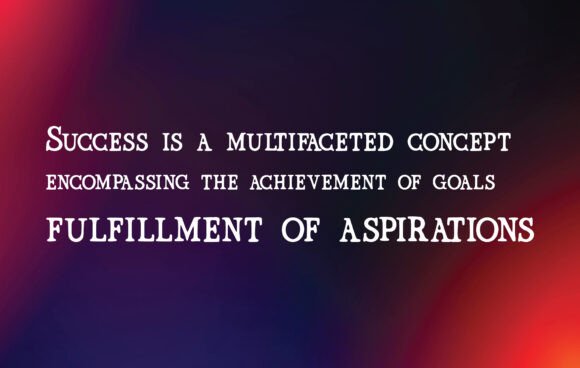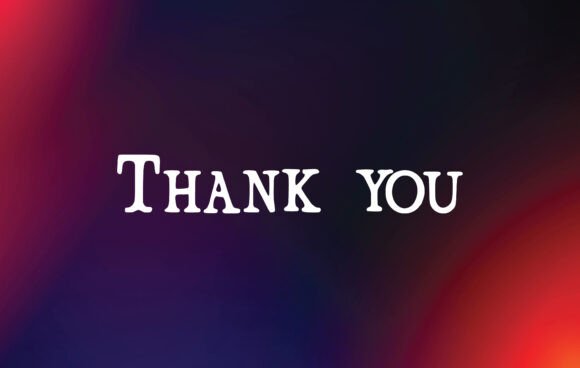
The Ultimate Design Companion: Unleashing the Power of Buffalo Font
Ah, the quest for the perfect font – a designer’s eternal struggle! I still remember the time I was working on a magazine layout, pouring over font options, and just couldn’t seem to find the right fit. My client wanted something stylish, yet easy to read; something that would elevate their brand without overpowering it. And then, I stumbled upon Buffalo Font. 💡
This font has been a game-changer for me, and I’m excited to share its awesomeness with you! In this article, we’ll dive into the world of Buffalo Font, exploring its features, versatility, and – most importantly – how to make the most of it in your creative projects.
What I Love About Buffalo Font ✨
- ✅ Easy to read: Whether you’re designing a magazine headline or a social media post, Buffalo Font is crystal clear and effortlessly legible.
- 💥 Versatile: From titles to body text, this font adapts seamlessly to any design context.
- 🎨 Stylish: Buffalo Font brings a touch of sophistication and elegance to any project, making it perfect for branding materials, wedding invitations, and more.
- 👍 Highly customizable: With OpenType features and glyphs, you can experiment with different styles and alternates to make your design truly unique.
- ⚠️ Limited italic styles: While Buffalo Font offers a range of styles, the italic options are somewhat limited – but this doesn’t detract from its overall versatility.
- 🤔 Occasional kerning issues: As with any font, you may encounter some kerning quirks – but these can usually be easily adjusted in your design software.
The Designer Inspiration Behind Buffalo Font 🎉
According to its creators, Buffalo Font was inspired by the classic typography of the early 20th century, combined with modern sensibilities and digital design trends. The goal was to craft a font that’s both timeless and versatile – perfect for designers, crafters, and creative hobbyists alike.
Q: How does Buffalo Font compare to other serif fonts?
A: Buffalo Font stands out with its unique blend of classic and modern elements, making it both elegant and highly legible.
Q: Can I use Buffalo Font for body text and long-form content?
A: Absolutely! Buffalo Font’s clear and readable design makes it suitable for body text, articles, and long-form content.
And there you have it – a comprehensive guide to Buffalo Font, your new go-to companion for stylish and versatile design. With its ease of use, flexibility, and range of features, this font is sure to become a favorite in your collection. 💖